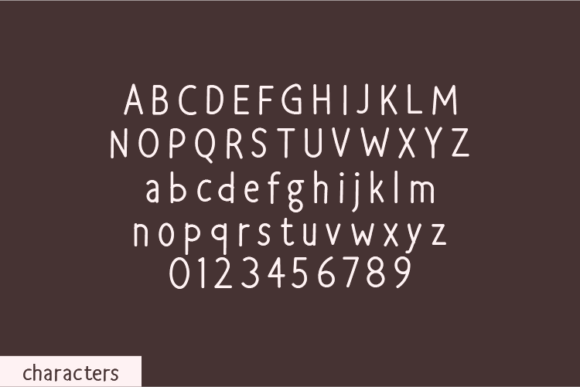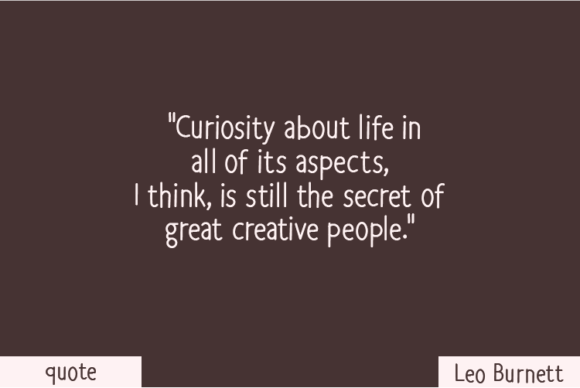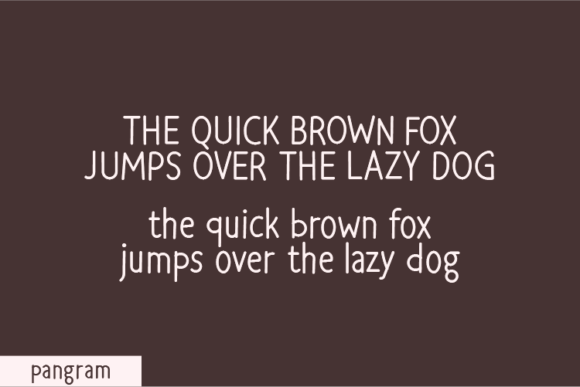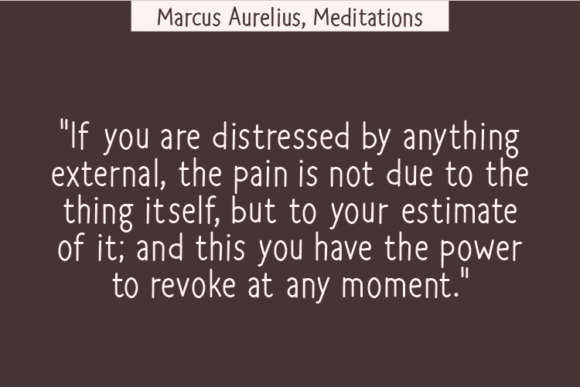
Piercing Font
About Piercing Font
Piercing Font Download brings you a natural handwritten typeface with an authentic and unrefined charm. Each letterform is created without altering a single node in its indentation. This raw design approach makes Piercing stand out as a genuine, handcrafted font that radiates originality and uniqueness.
A Natural and Distinctive Style
Piercing’s strength lies in its balance between authenticity and usability. With its organic curves and natural rhythm, it’s suitable for:
• Inspiring quotes and handwritten notes
• T-shirt graphics and casual apparel
• Greeting cards, planners, and journals
• Branding, packaging, and logos
• Digital projects like social media posts and blog headers
Why Designers Choose Piercing
Designers love Piercing because it delivers the genuine look of natural while remaining easy to read. Its handcrafted style adds personality, while its clean form ensures clarity across various applications. Pair it with minimal fonts for modern projects or let it stand alone for bold typographic statements.